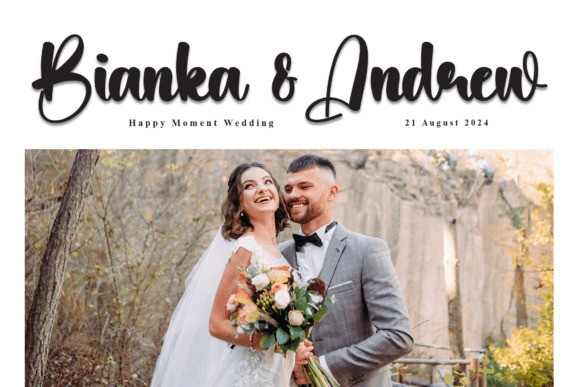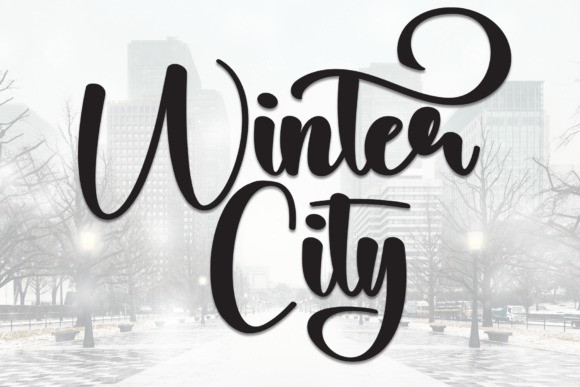
Winter City Font
Winter City Font is a bold display font that has a strong and modern look. Its thick letters make it easy to read, perfect for headlines and signs. This font captures the cozy feel of winter, adding a stylish touch to any design!